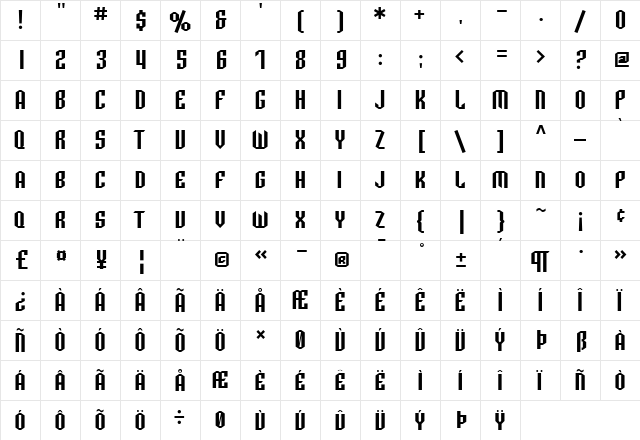
SF Archery Black SC Regular
| Designer | ShyFonts Type Foundry |
Design Context for SF Archery Black SC Typeface
SF Archery Black SC is a composed and adaptable typeface that performs quietly and consistently across a wide range of design contexts.